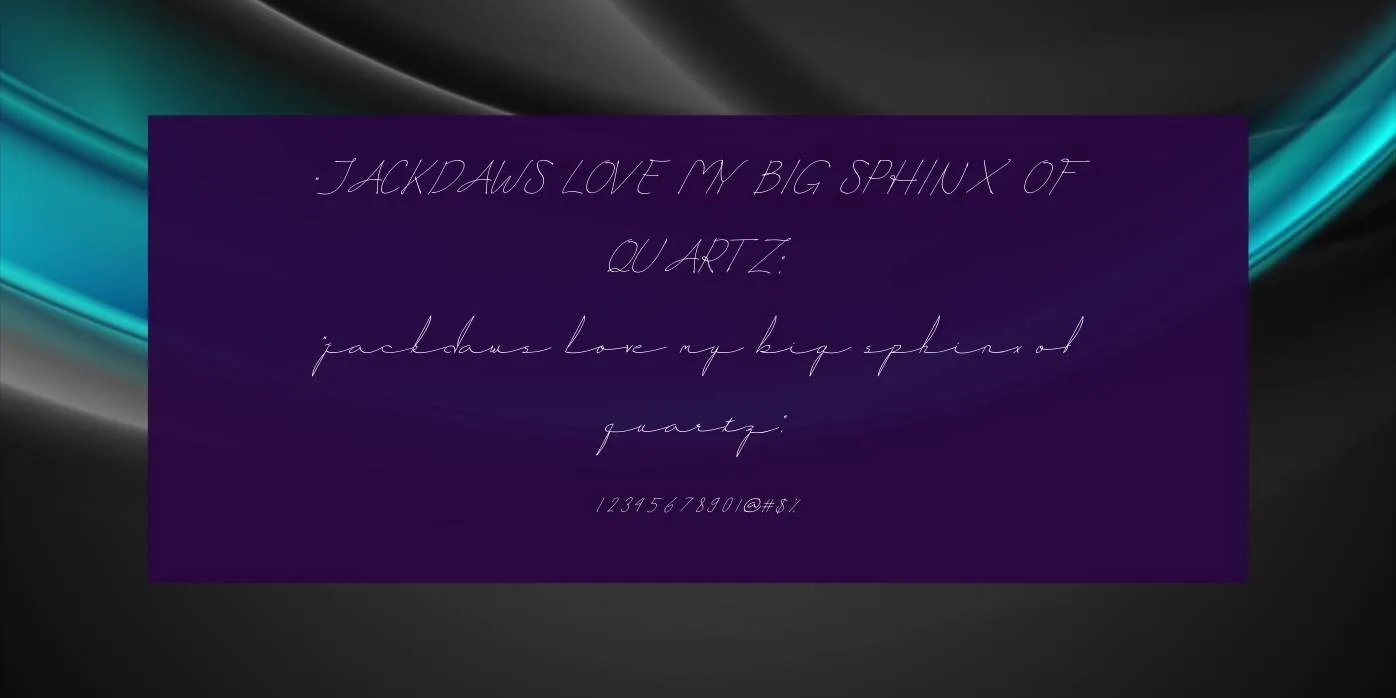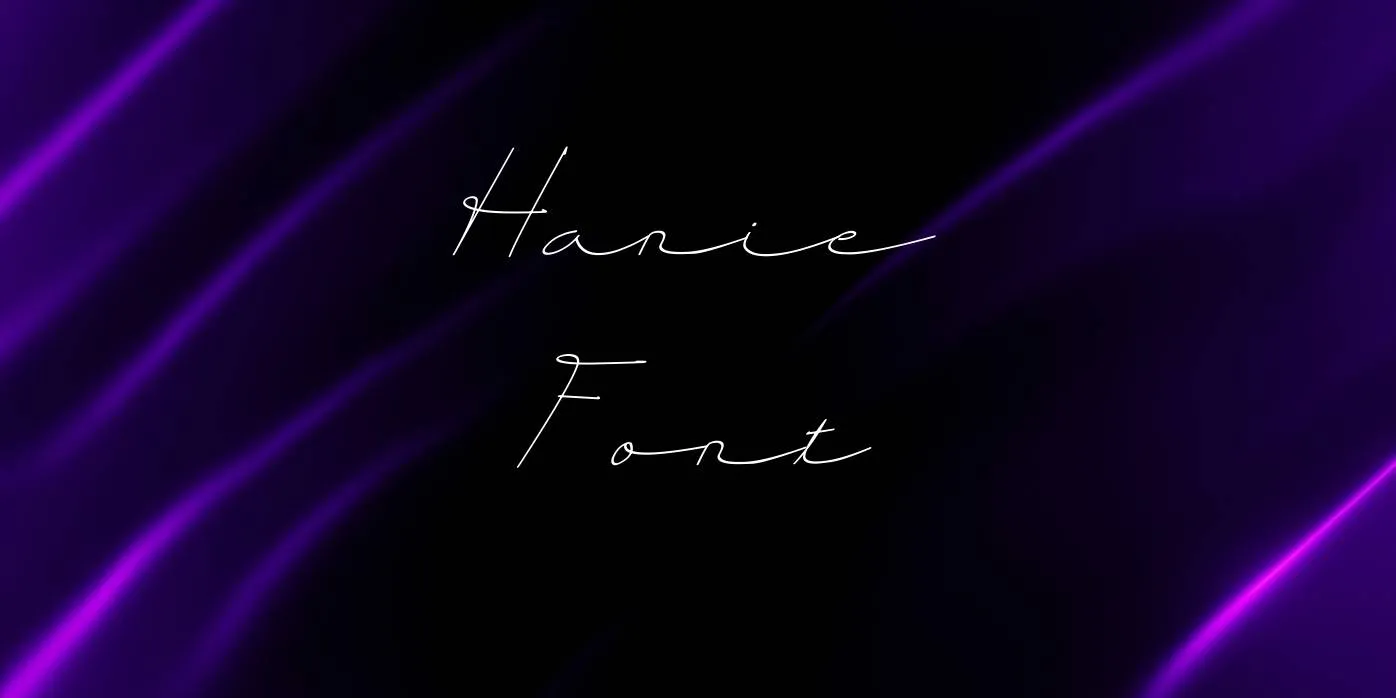
Hanie Font
Hanie Font is a popular font style used in many design applications. It is often used for its unique and stylish appearance. This Font was created by designer Hanie Utomo in 1999. This Font is perfect for those who want to add a touch of style to their designs.
This font is available in both TTF and OTF formats. The glyph of this font is based on the original Hanie Font by Hanie Utomo. The character set of this font contains upper and lower case letters, numbers, and punctuation marks. This Font also supports international characters.
Make your design project Splatter with this typeface. Use the one piece font with its replacement or as a pairing function. This font is perfect for use in design projects that require a touch of style and elegance.